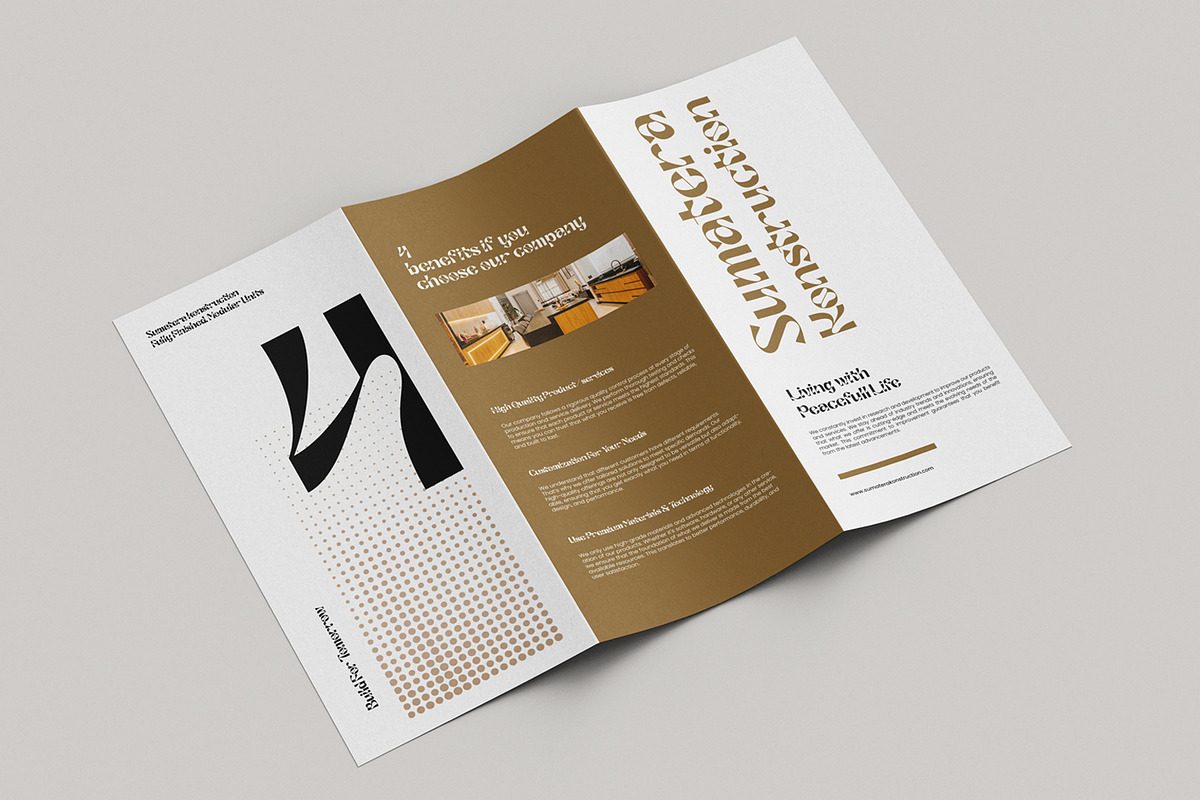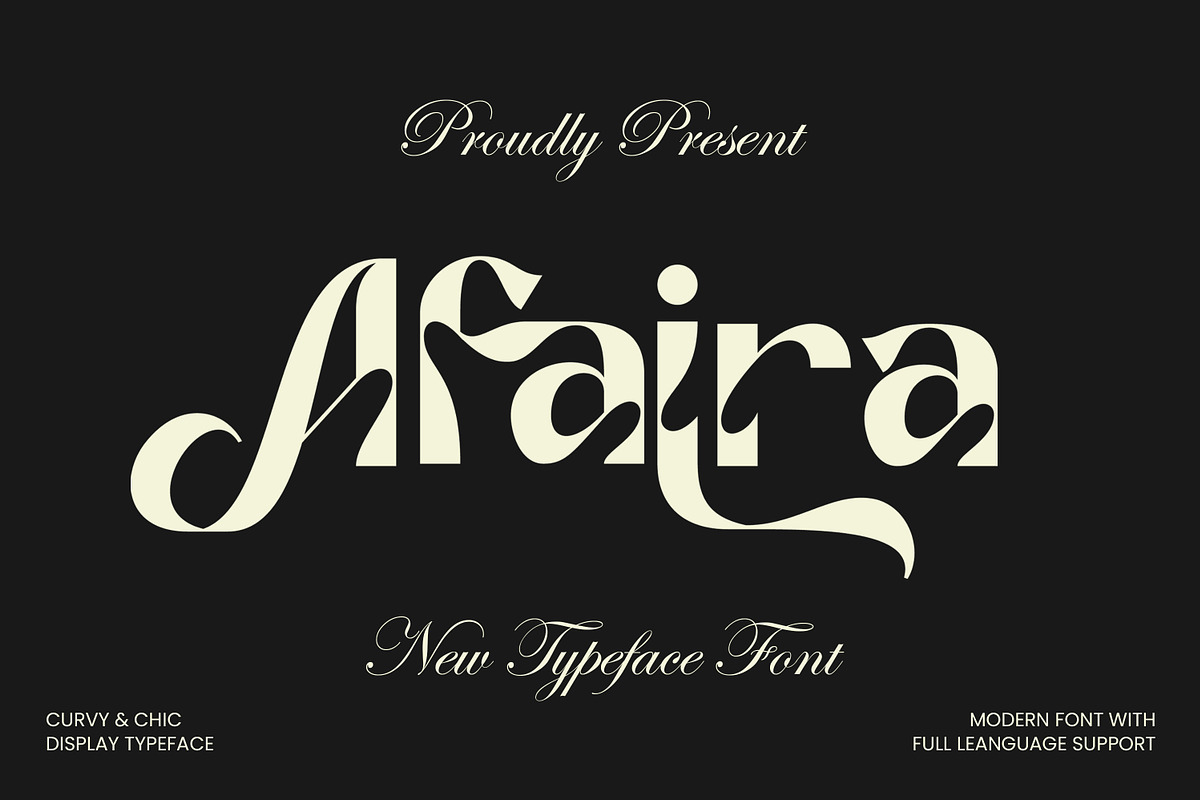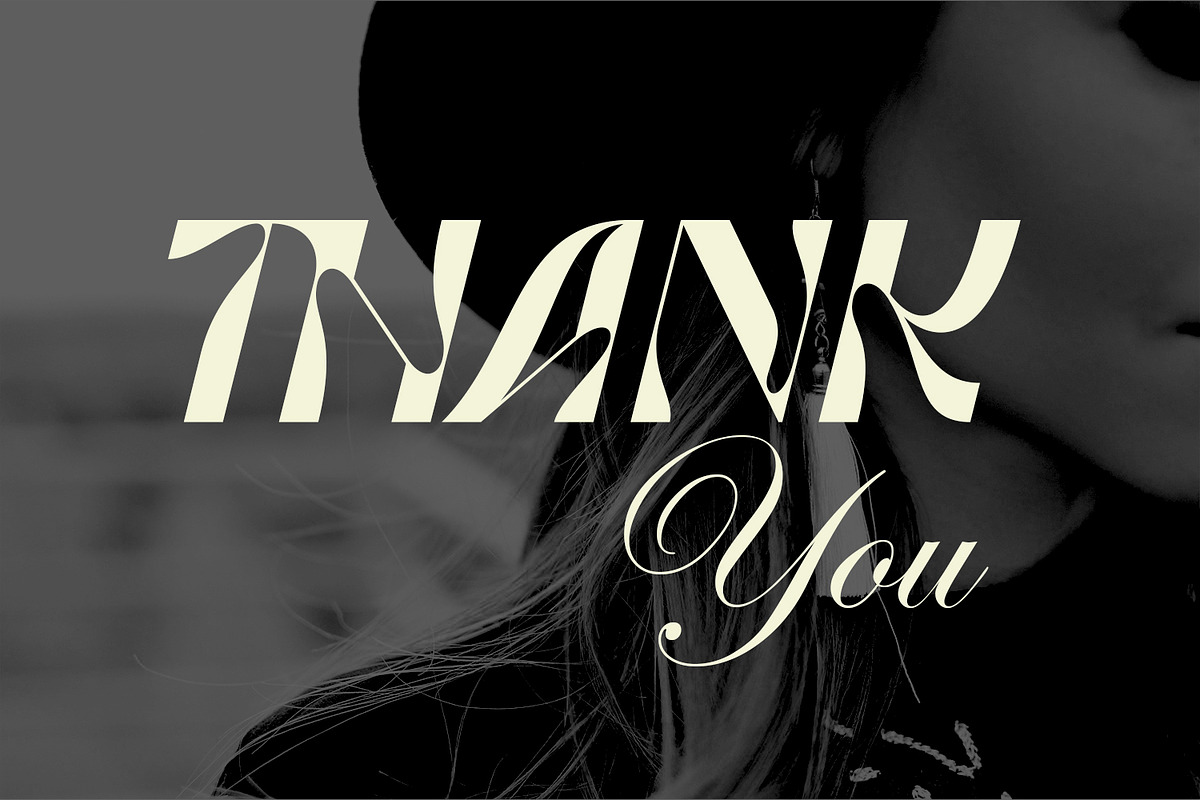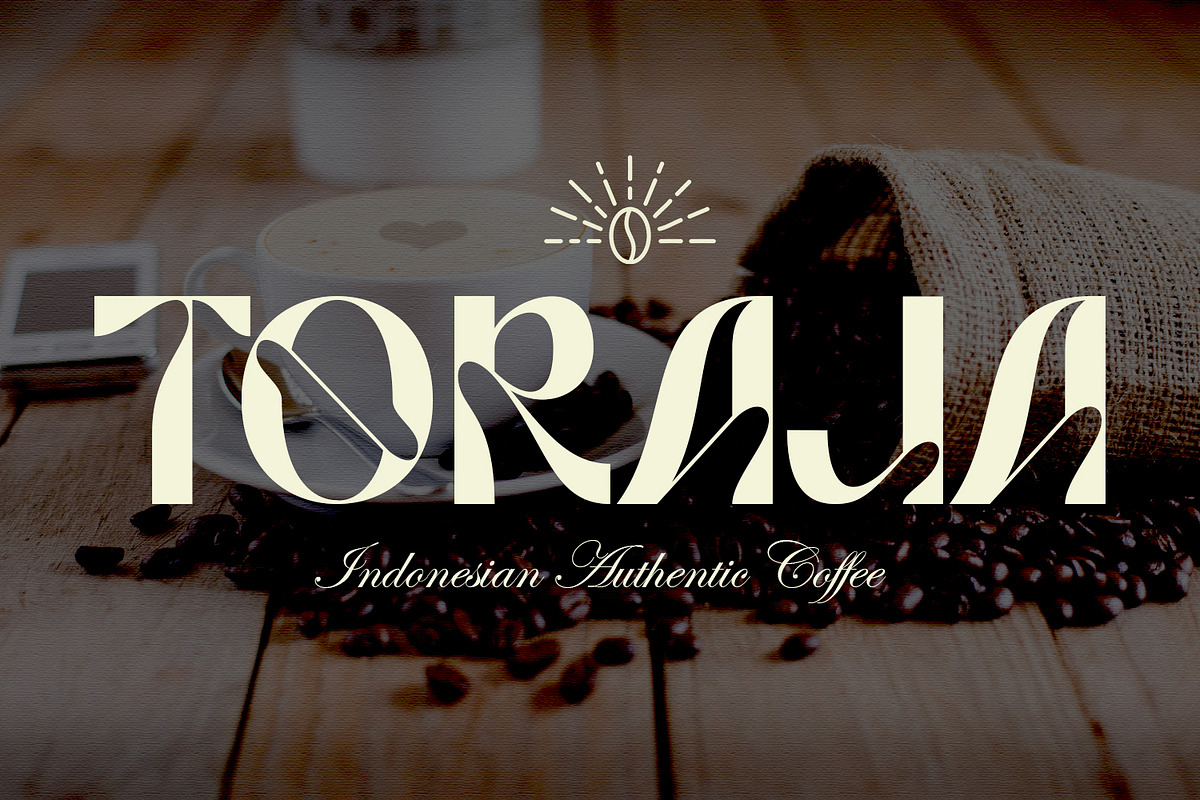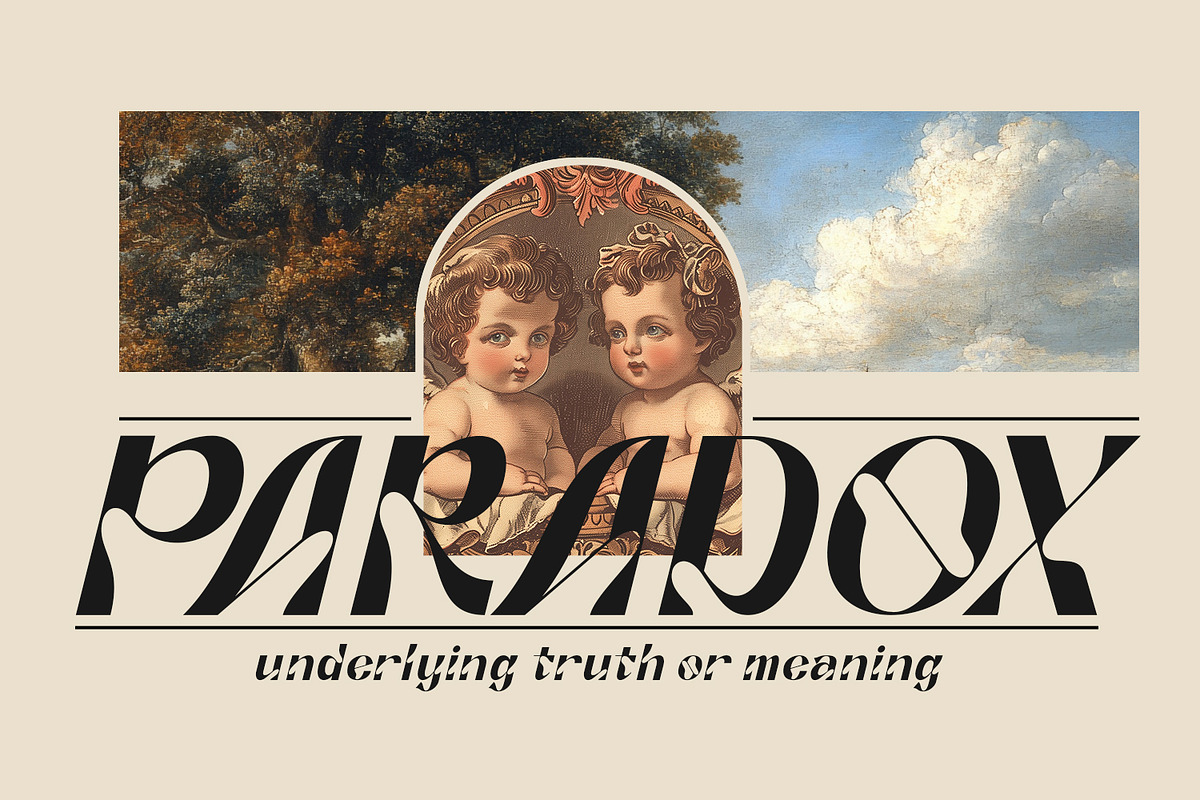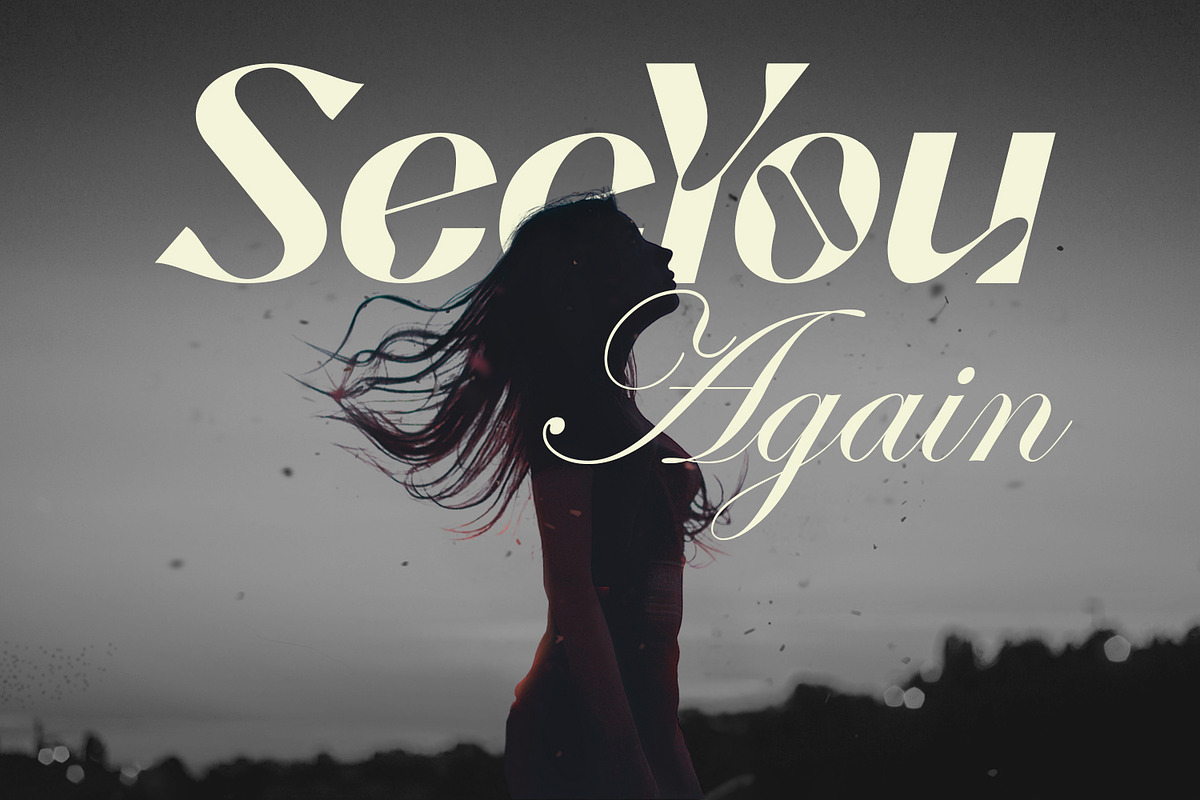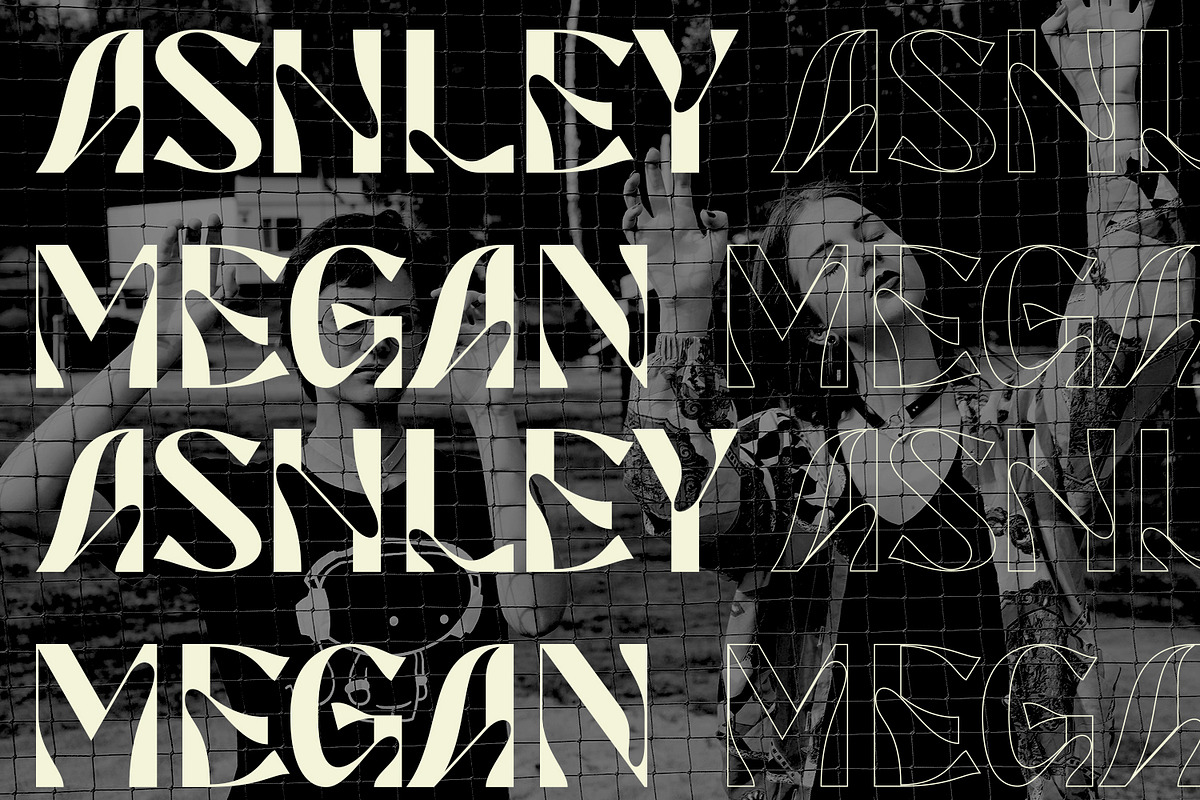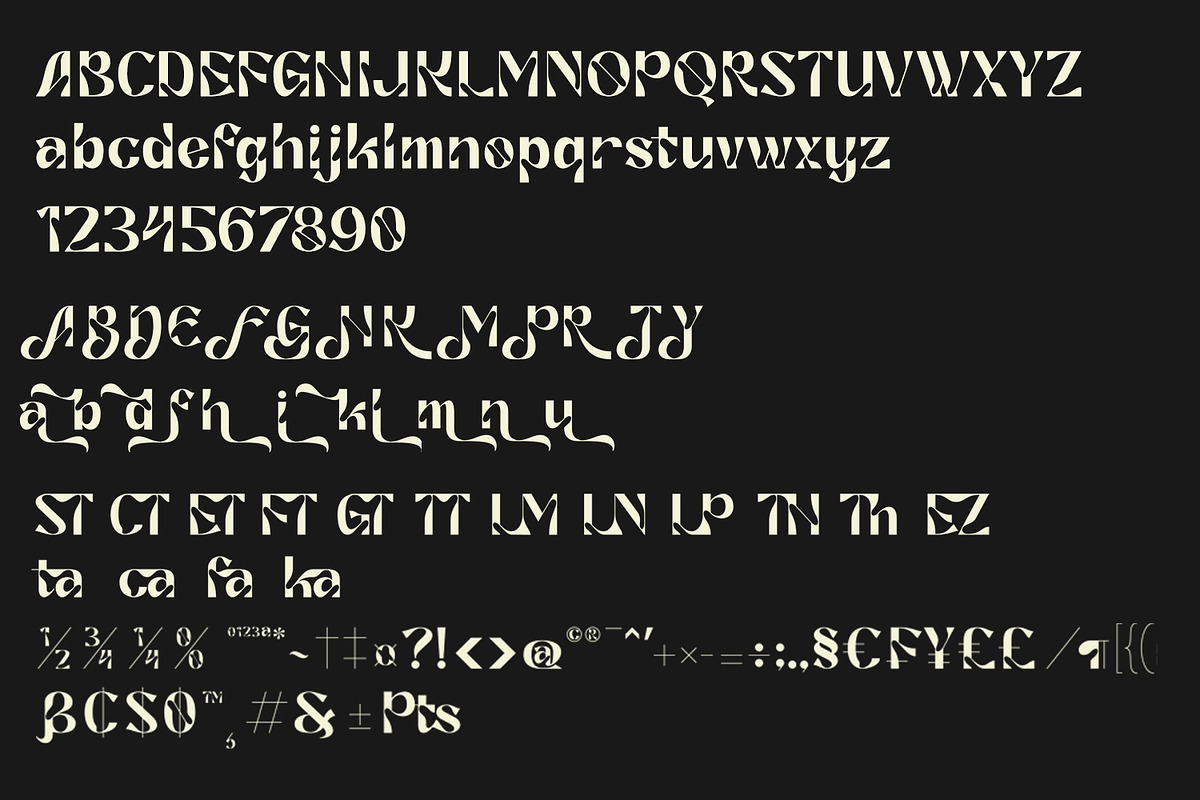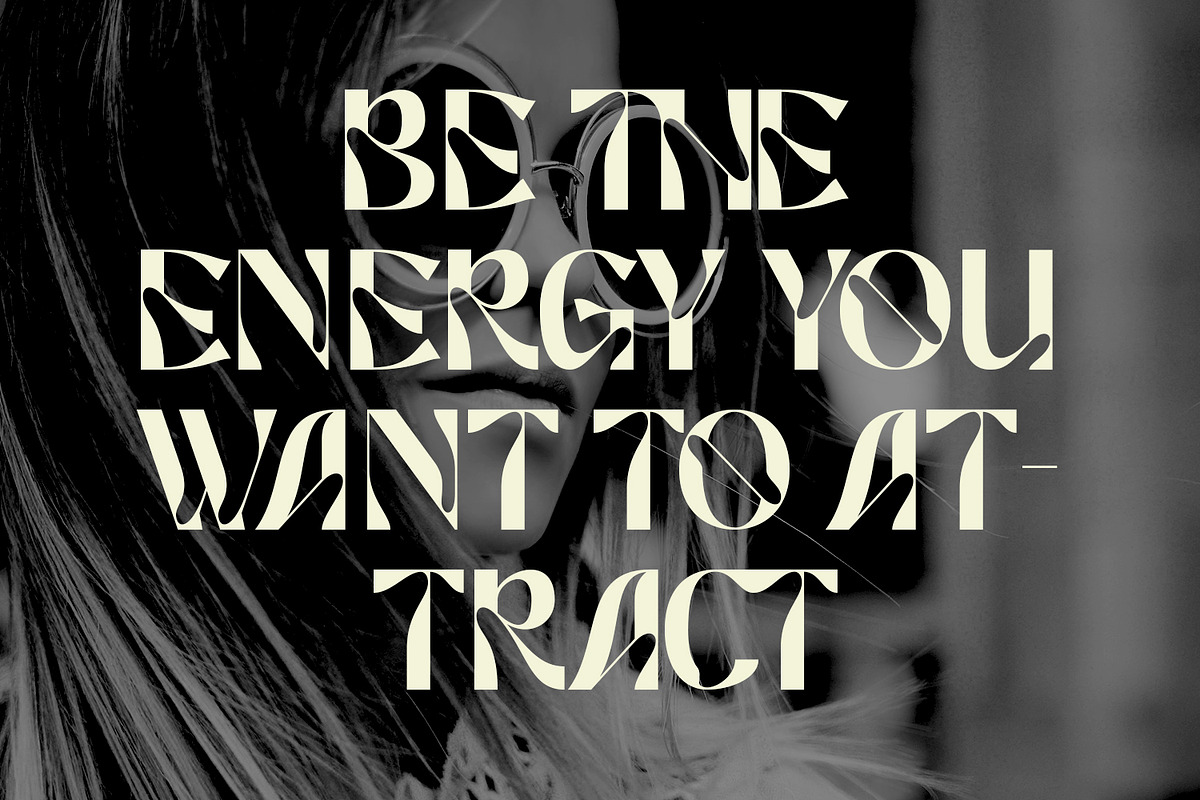
Afaira - Curvy & Chic Display Font
Afaira - Curvy & Chic Display Font, from Favowrite Studios, is a premium Font, perfect for any project that requires a distinctive, and premium feel.
- Ligature, Alternate & amp; Multilingu